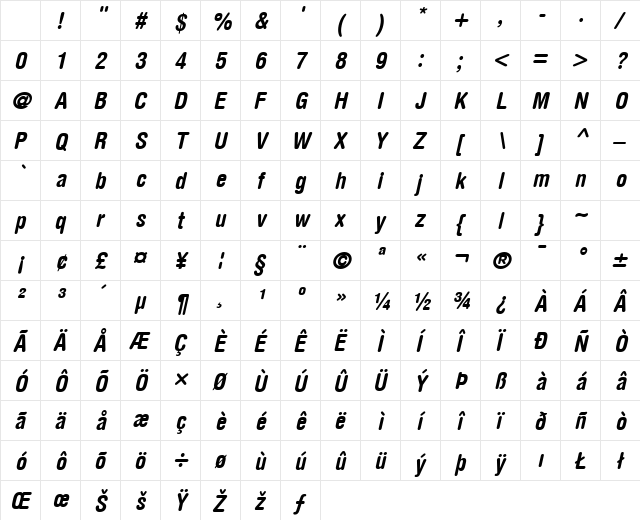
Design Context for Context Rounded Condensed SSi
Context Rounded Condensed SSi softens its letterforms with rounded terminals, giving it an approachable, friendly quality that works well in consumer-facing and digital contexts.
Font Pairing: Pairs well with a rounded or humanist sans for body copy, maintaining the friendly tone without relying on Context Rounded Condensed SSi to carry extended reading.
Pro Tip: Use Context Rounded Condensed SSi for UI elements, app interfaces, and anywhere a friendly, approachable tone needs to be maintained without sacrificing clarity.